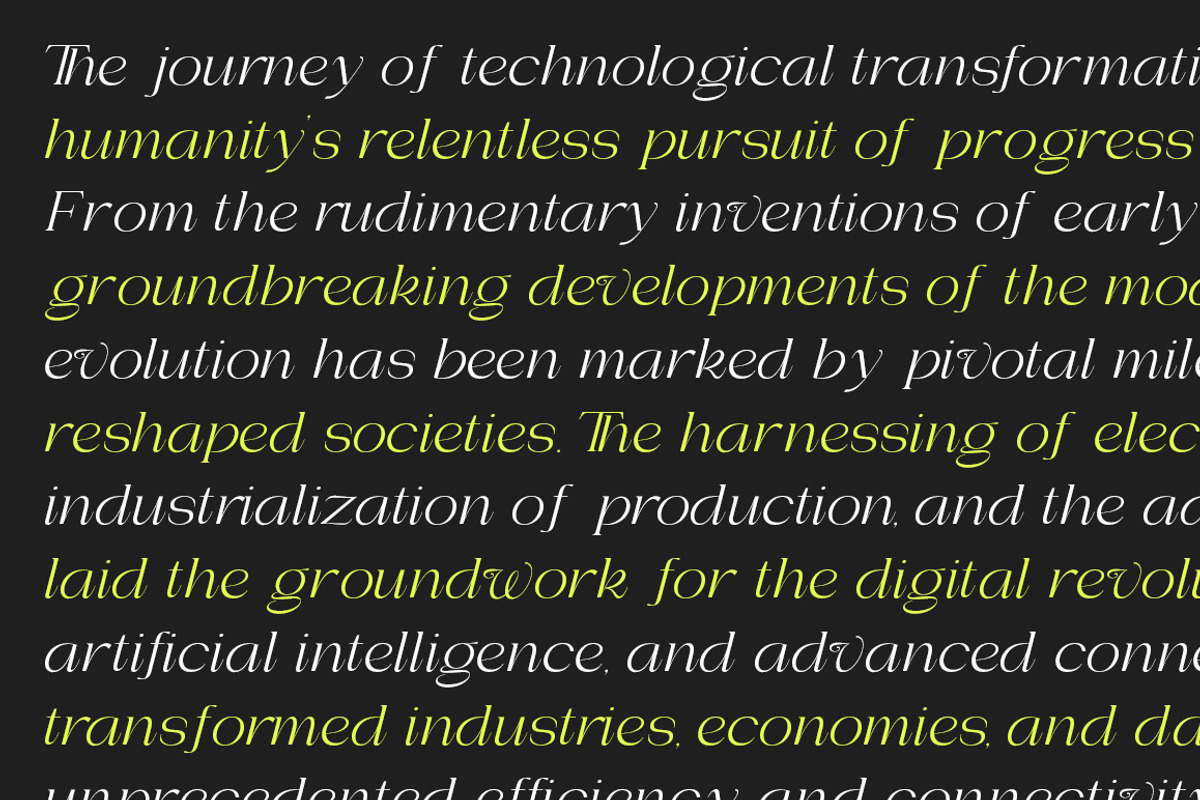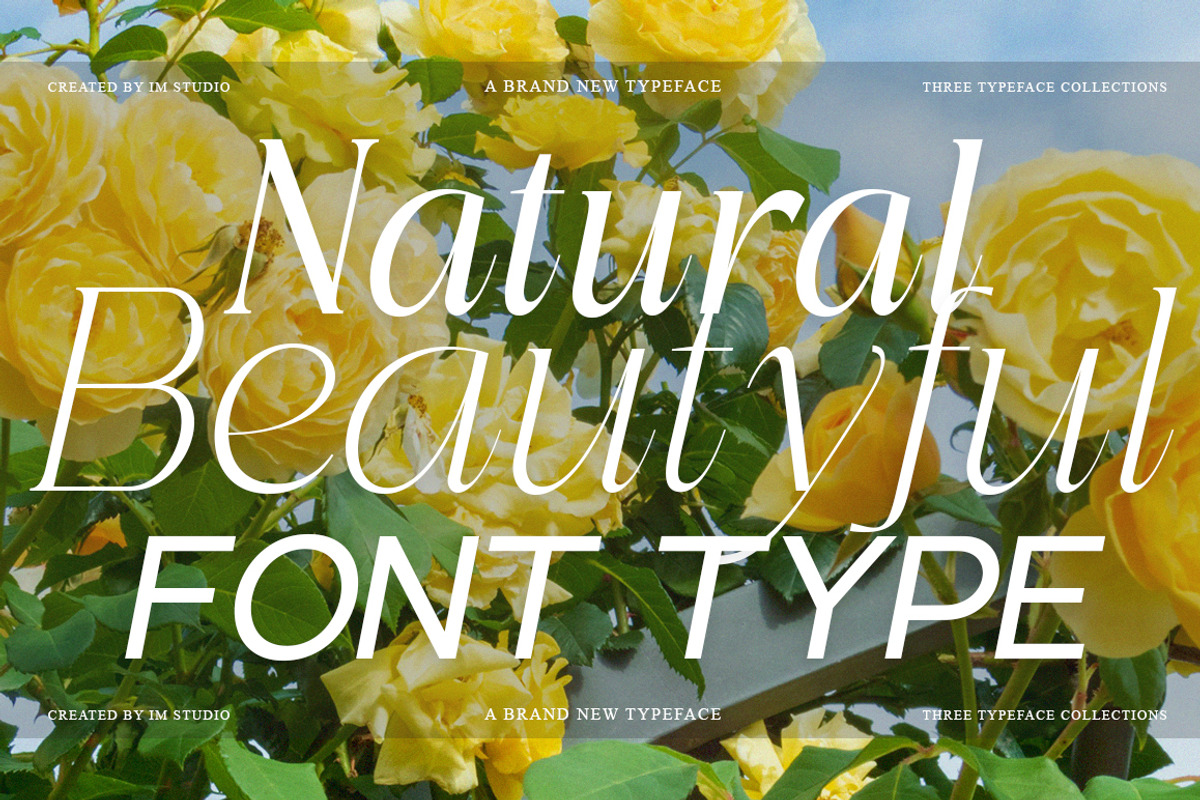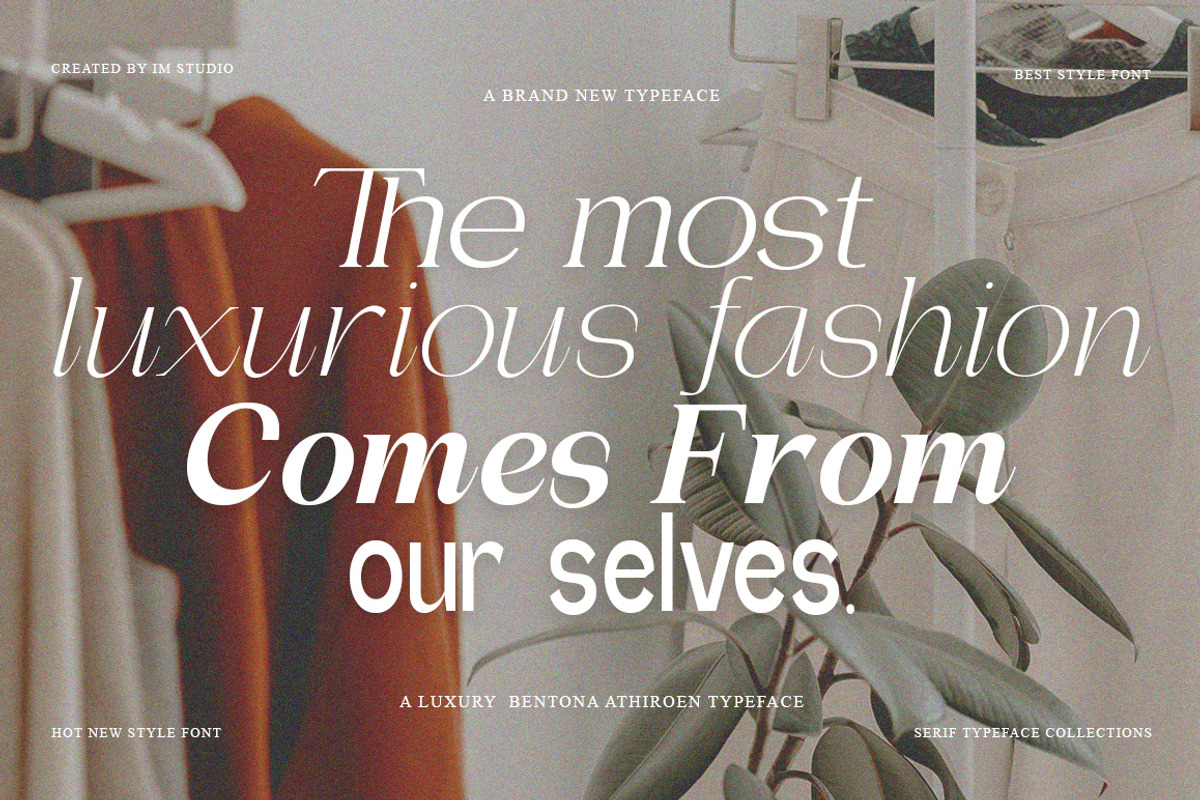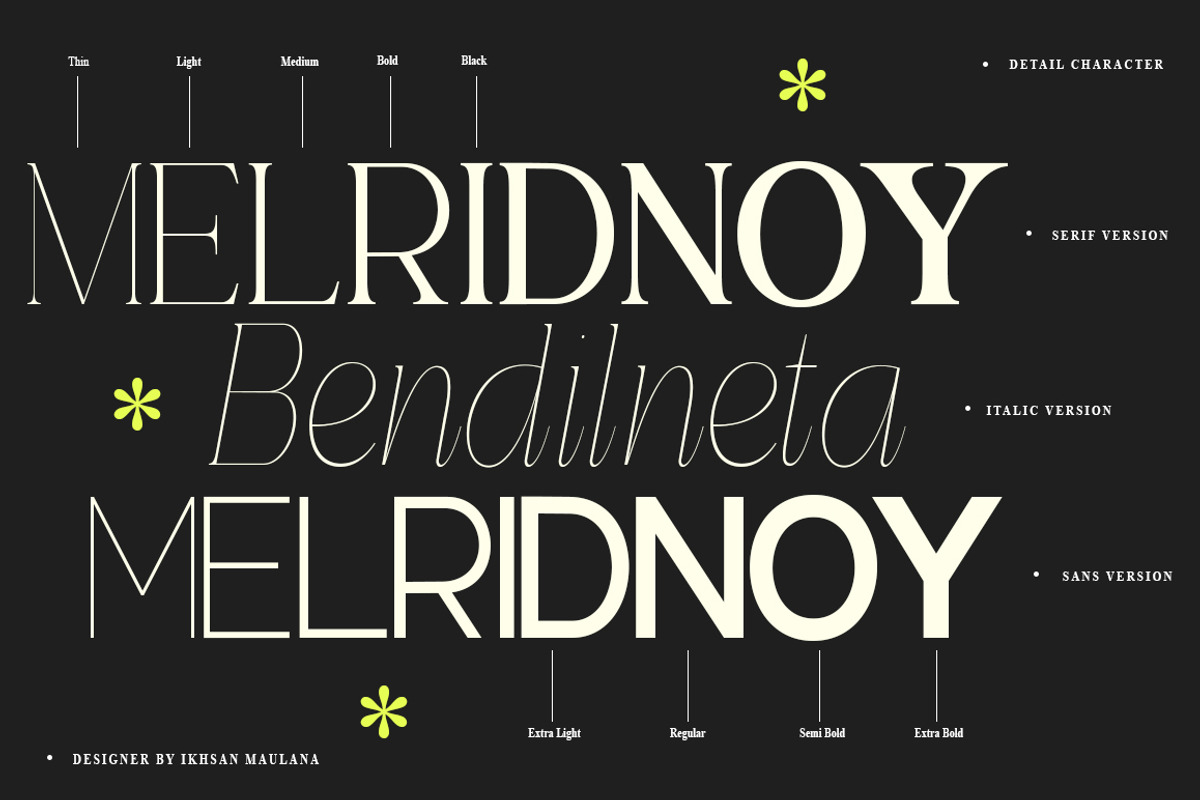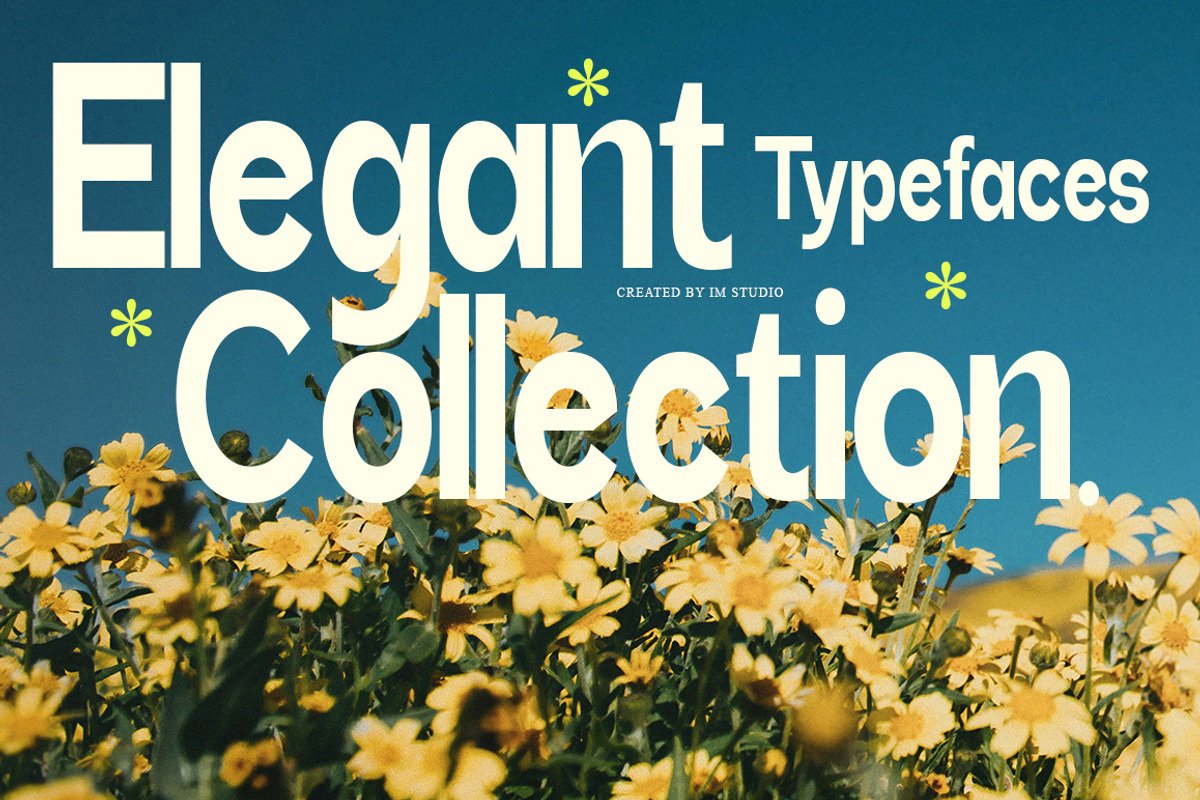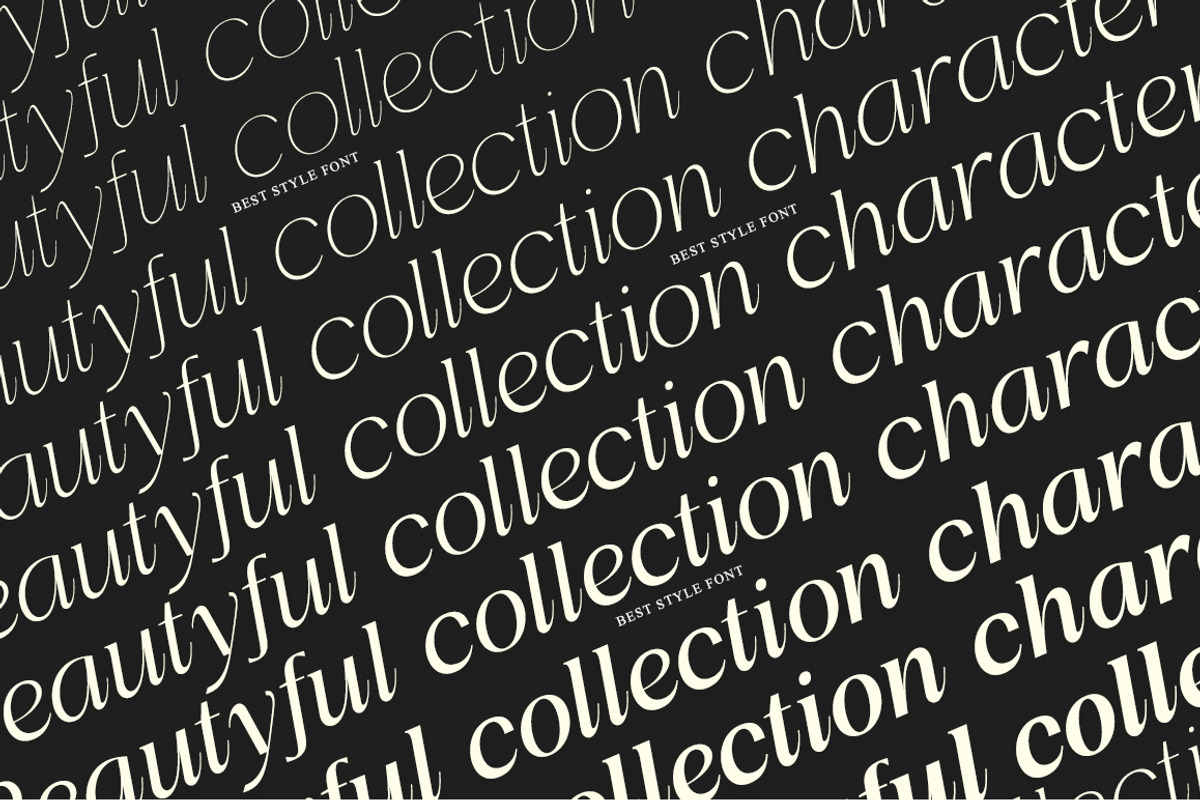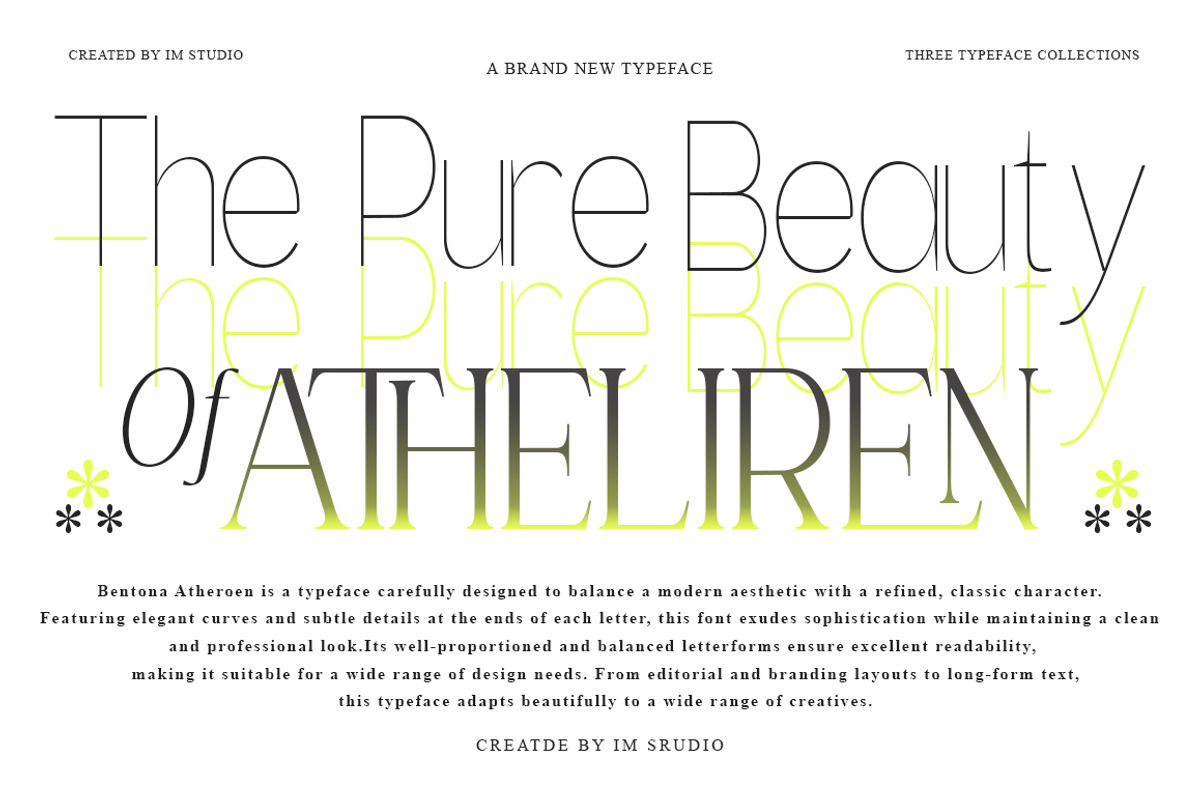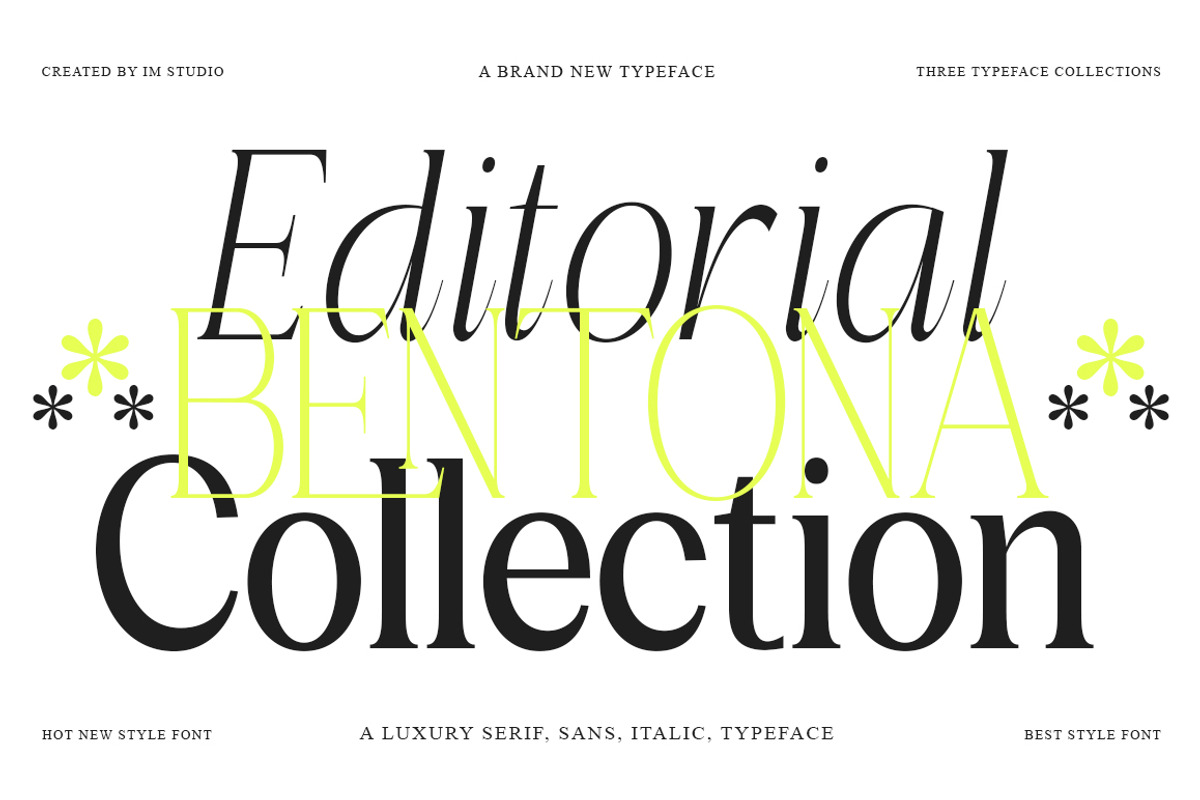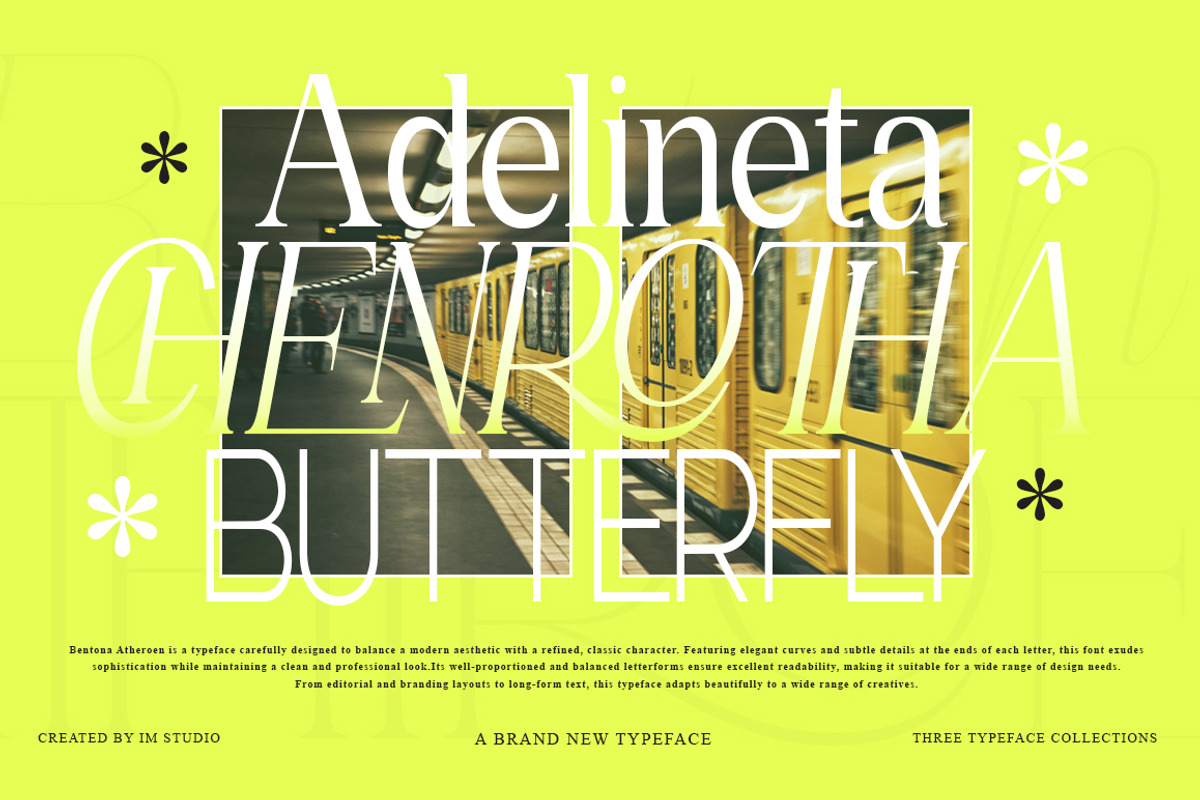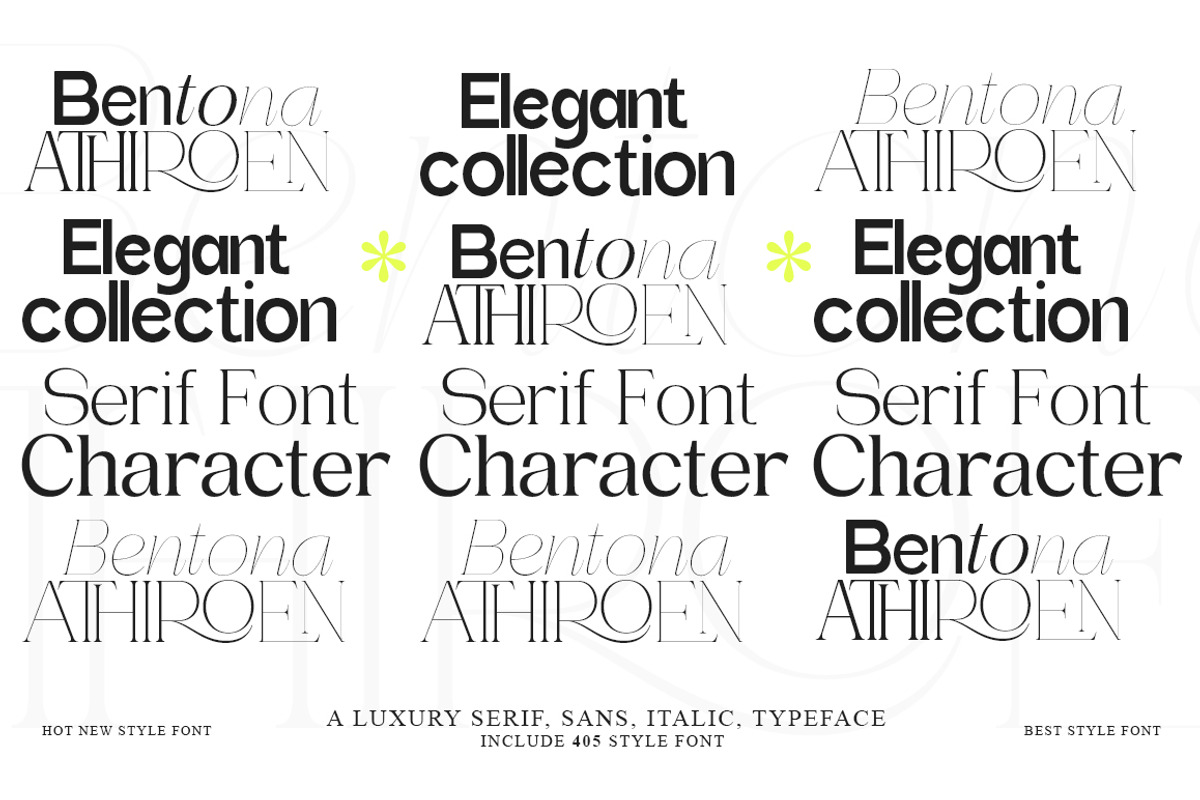
Bentona Athiroen Complete| 405 Style
Bentona Athiroen Complete | 405 Font Styles
The Ultimate Typographic Universe: Where Timeless Luxury Meets Infinite Versatility.
Bentona Athiroen is not just a typeface; it is a comprehensive design system. Featuring a staggering 405 font styles, this collection seamlessly weaves together the refined grace of a Serif, the rhythmic flow of a True Italic, and the clean authority of a Sans Serif.
Designed for those who refuse to compromise between classic sophistication and modern utility, Bentona Athiroen delivers high-contrast strokes and meticulous proportions that command attention in any medium.
✦ The Power of 405 Styles
From the whisper of Ultra Condensed to the bold statement of Ultra Expanded, Bentona Athiroen provides an unprecedented spectrum of widths and weights.
Serif: High-contrast elegance for a luxurious, editorial feel.
Sans Serif: Modern, clean, and highly legible for digital-first branding.
True Italics: Custom-drawn (not slanted) to provide a fluid, dynamic rhythm.
Width Varieties: Includes Extra Condensed, Semi Condensed, Expanded, Semi Expanded, and more—ensuring the perfect fit for any layout constraint.
✦ Key Highlights
Masterful OpenType Features: Unlock a world of creative possibilities with advanced ligatures and stylistic alternates that give your text a bespoke, hand-crafted feel.
Uncompromising Readability: Whether it’s a high-resolution print or a mobile interface, the clean contrast ensures a premium reading experience.
Effortless Harmony: All 405 styles are engineered to work together, allowing you to mix Sans, Serif, and Italics while maintaining a cohesive brand DNA.
✦ Ideal Applications
CategoryRecommended UseLuxury BrandingHigh-end logos, fashion identity, and premium packaging.Editorial ExcellenceMagazine mastheads, book interiors, and sophisticated layouts.Digital FirstCrisp UI/UX design, web headers, and mobile app typography.Formal StationeryWedding invitations, gala programs, and upscale correspondence.AdvertisingLarge-scale posters and billboards where width flexibility is key.✦ What’s Inside?
Complete Typeface Suite: Serif, Sans Serif, and True Italic families.
Massive Weight/Width Range: 405 total fonts across the entire width spectrum.
Step into the world of Bentona Athiroen. Transform your creative vision with a font family that offers infinite expression, undeniable confidence, and a touch of eternal class.